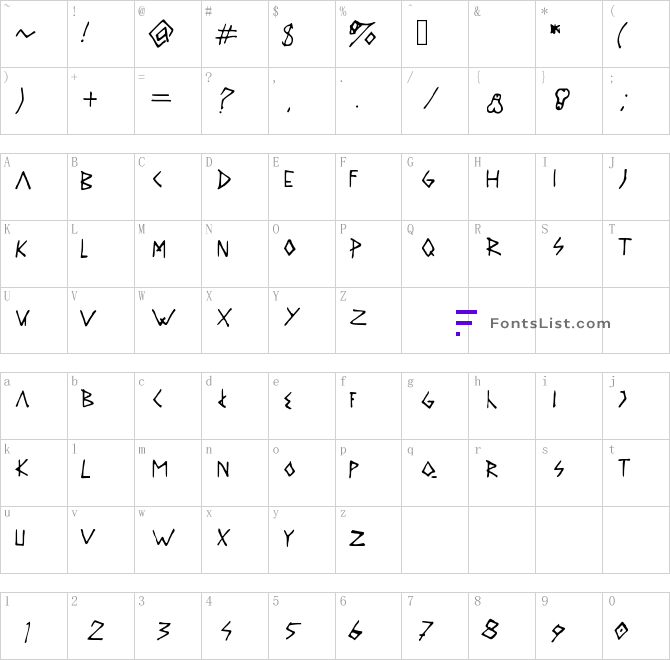
- Font Name:DAILYROUTINE
DAILYROUTINE.ttf is a very beautiful artistic font, DAILYROUTINE.ttf is widely used in the design and printing of various books and pictures,DAILYROUTINE.ttf has a strong visual impact,DAILYROUTINE.ttf is a commonly used font in newspapers, magazines and books, and is used in posters, e-commerce Poster design, store design, logo design, font design and other fields.DAILYROUTINE.